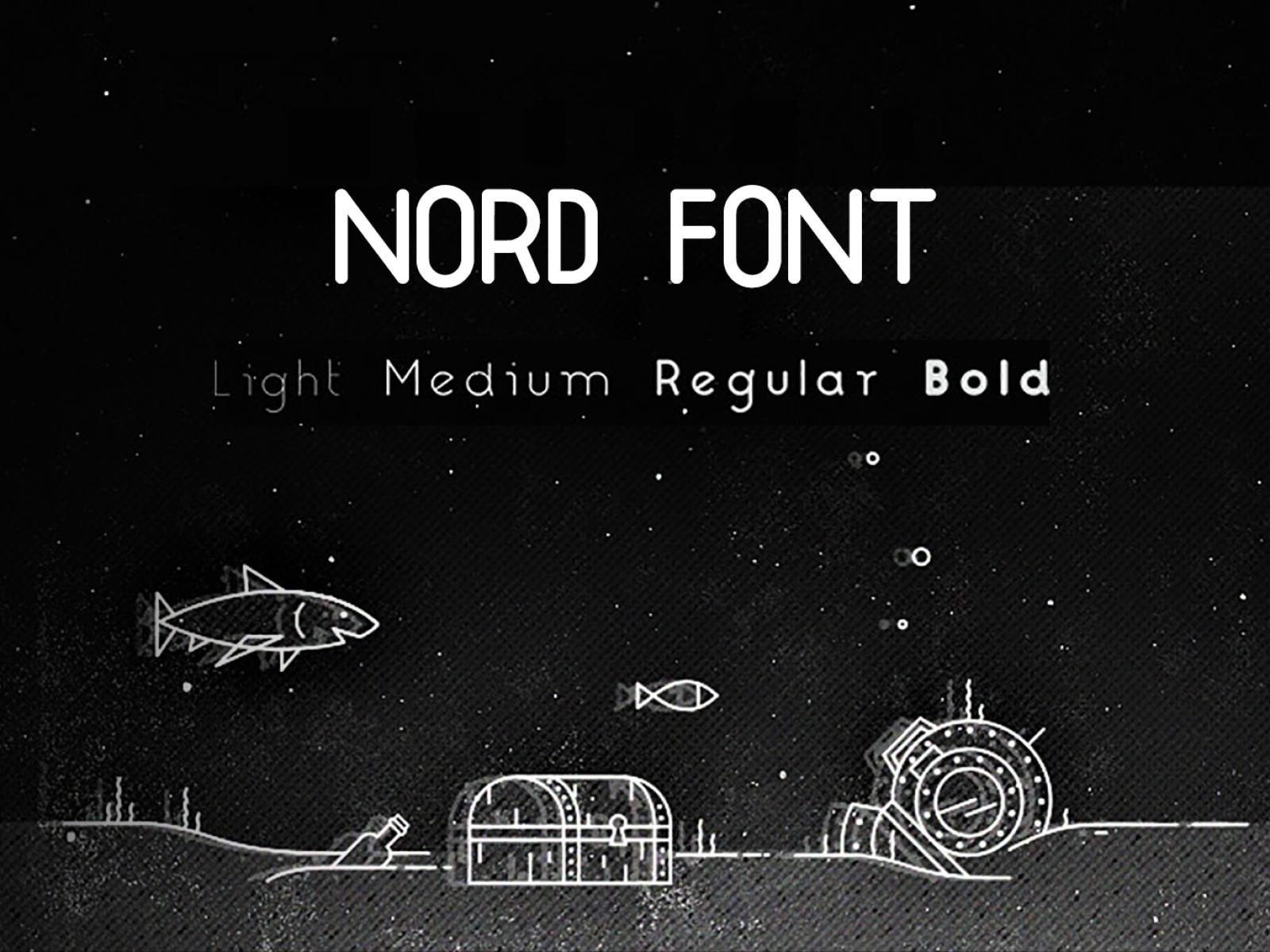
Nord Free Font
Fonts are rare items on our blog, for now, so we're excited even more to share the Nord Free Font with you. Simple and neat sans serif for any purpose!
This typeface was created to celebrate the birth of Nord Collective, a brand new motion design studio formed by Alex Frukta and Vladimir Tomin. Available for all platforms, it can be implemented into any work and used according to your stylistic preferences. Guess, it'll look great as a part of some plain and minimalistic designs, what do you think?